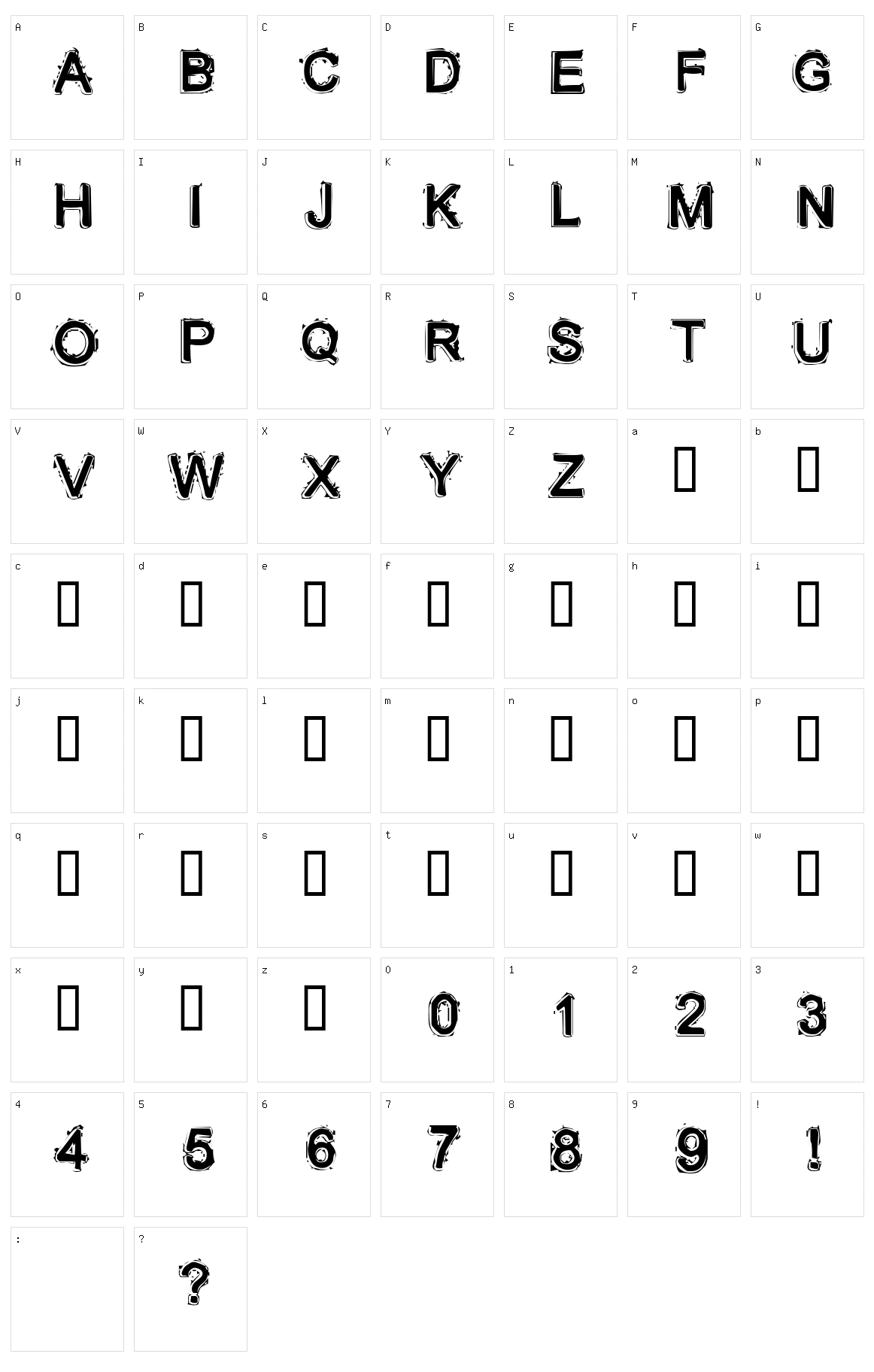
The free font Lithium is carefully designed by Spork Thug Typography, showcasing a thoughtful balance of creativity and usability and falls under the Distorted font style. When you download the ZIP file, it contains only 22.16 KB of font files, making it lightweight and quick to download. Please review the license details below to understand permitted usage and distribution rights. If license information is not available, we recommend using this font for personal projects only or contacting the author directly for commercial usage permissions.